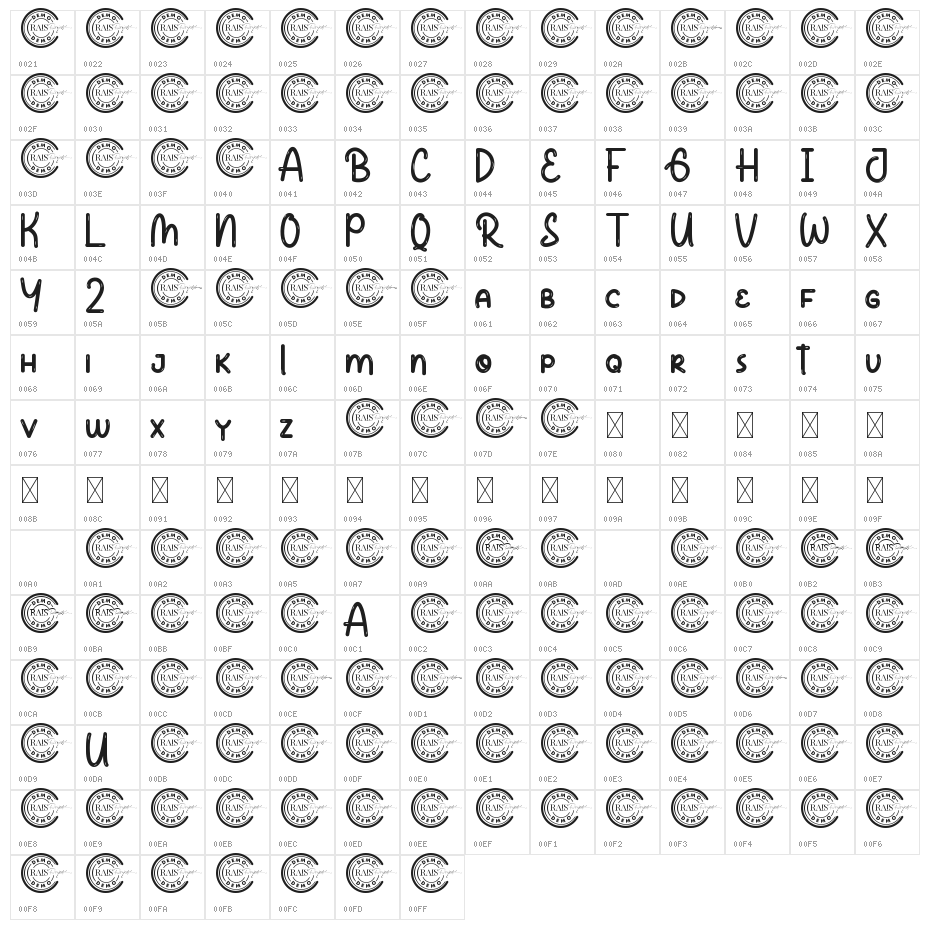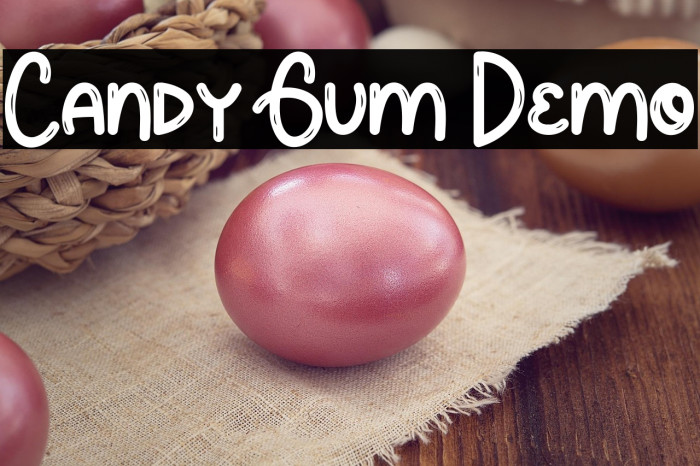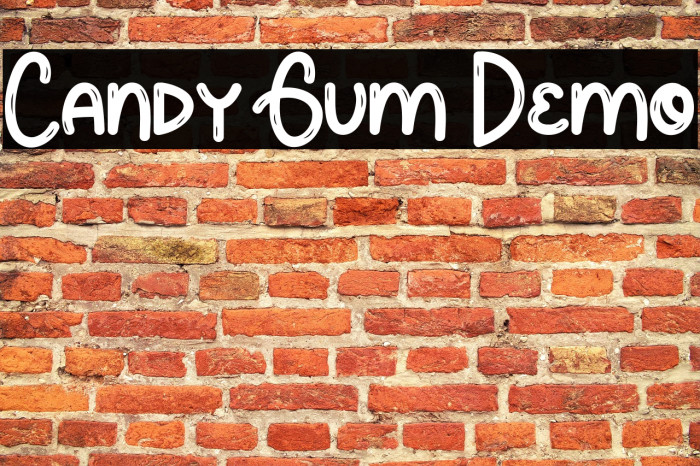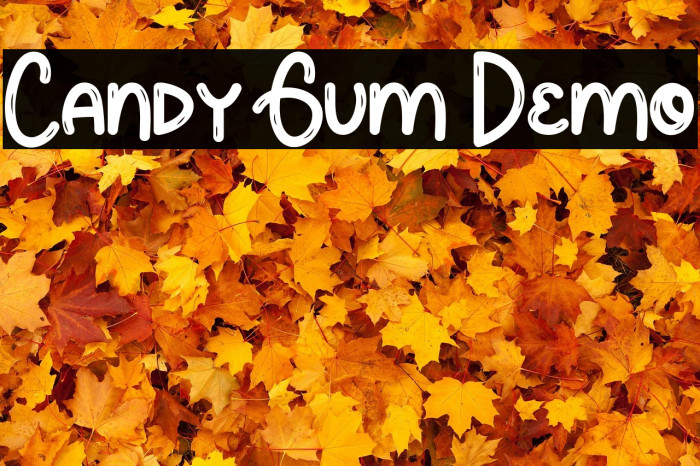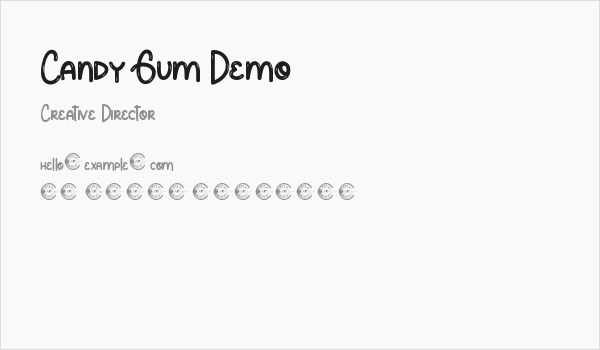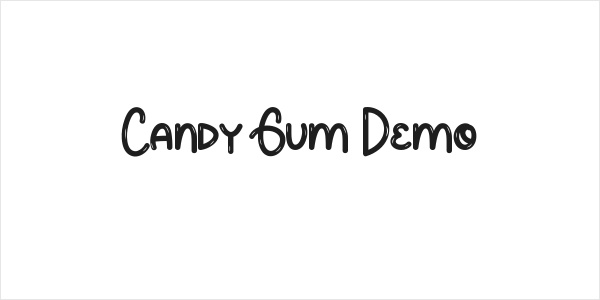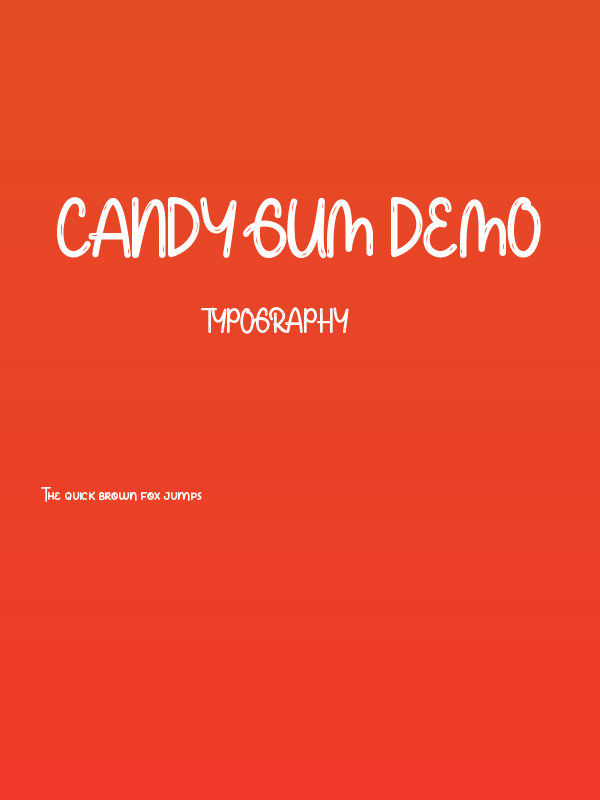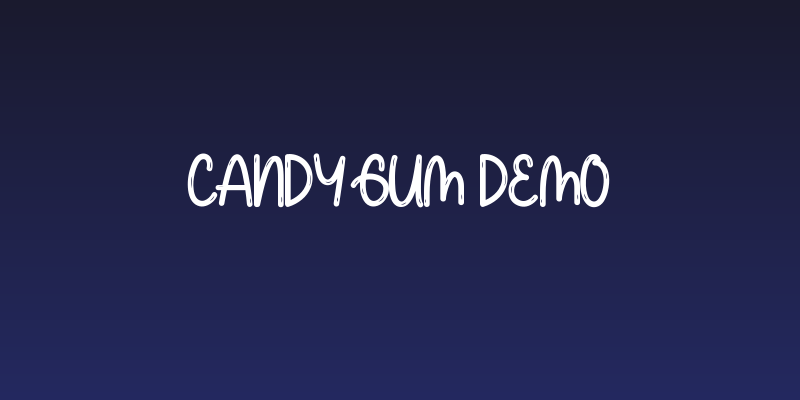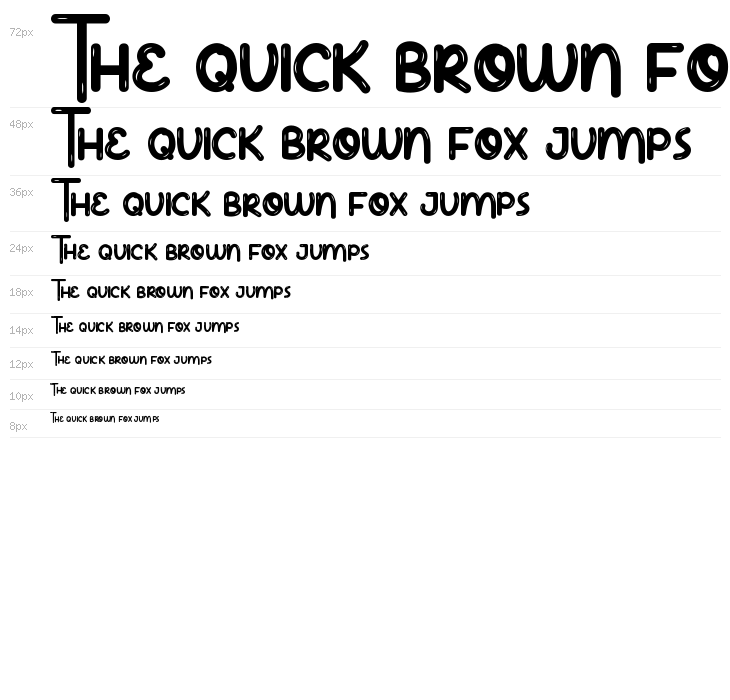
Candy Gum Demo Font
Candy Gum Demo Description
This playful and whimsical font features bold, rounded characters with a bubbly appearance, reminiscent of candy or gum. The letters have a consistent stroke width, giving them a uniform and cohesive look. The uppercase and lowercase letters maintain a similar style, with slight variations in size and shape. The font includes a full set of uppercase and lowercase letters, numbers, and a selection of special characters. Its design is both fun and approachable, making it ideal for projects that require a lighthearted and friendly touch.
| Proposed Projects | Ideal for children's books, playful branding, party invitations, and fun social media graphics. |